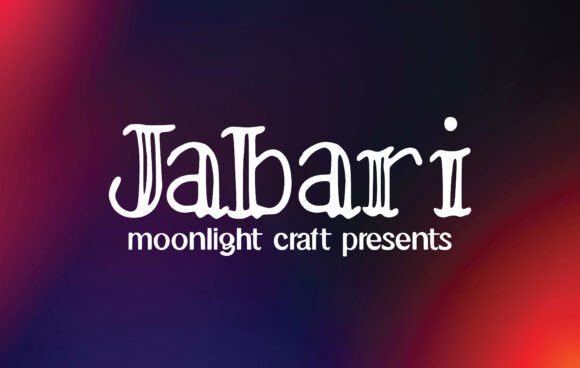
Jabari Font: Elevate Handmade Branding and Crafts
As a small business owner constantly searching for the perfect typeface to make my products stand out, discovering Jabari felt like finding a missing piece in my design toolkit. This lovely and beautiful font is more than just a collection of letters; it is a versatile Slab Serif that brings warmth, structure, and undeniable charm to physical goods and digital downloads alike. For crafters and sellers who understand that typography can make or break a sale, Jabari offers the potential to take creative ideas to the highest level, transforming simple labels and signs into premium brand experiences that customers want to buy.
Jabari Slab Serif for Eye-Catching Logos and Shop Branding
When establishing a cohesive identity across Etsy listings, packaging, and social media, Jabari serves as an exceptional anchor for logos and branding materials because of its distinct Slab Serif character. Unlike delicate scripts that can disappear on a screen or bold sans serifs that can feel too corporate, this font strikes a perfect balance between artisanal warmth and professional readability. I have found that using Jabari for shop names and banner headers creates an immediate sense of trust and quality, signaling to buyers that the products behind the brand are thoughtfully made. The sturdy serifs provide excellent legibility even at smaller sizes on business cards or hang tags, while the overall aesthetic remains soft enough for handmade niches like pottery, textiles, or organic skincare. By integrating Jabari into your core brand assets, you create a visual consistency that helps customers recognize your work instantly in a crowded marketplace.
Designing Readable Product Labels and Packaging with Jabari
Creating product labels requires a font that remains crisp when printed on textured paper or cut from vinyl, and Jabari excels in these practical applications where clarity is paramount. Whether you are designing candle labels, soap wrappers, or jar stickers, the robust structure of this Slab Serif ensures that essential information like scent names or ingredients stays readable without sacrificing style. In my own production workflow, I appreciate how well Jabari holds up during the weeding process on cutting machines; the letterforms are substantial enough to prevent tearing but refined enough to look elegant on curved surfaces. This makes it an ideal choice for makers who need their Fonts to perform double duty as both decorative elements and functional communication tools. When paired with a simple sans serif for fine print, Jabari allows the product name to pop, guiding the customer’s eye exactly where you want it while maintaining a clean, uncluttered layout that enhances perceived value.
Jabari Typography for Wedding Stationery and Elegant Invitations
For stationery designers and DIY brides, Jabari provides a sophisticated alternative to traditional calligraphy when creating wedding invitations, welcome signs, and place cards. While script fonts are classic for weddings, many modern couples prefer the grounded, timeless feel of a Slab Serif that feels personal yet structured, and Jabari delivers this aesthetic beautifully. Its lovely proportions make it perfect for displaying names and dates prominently on acrylic signage or heavy cardstock, ensuring that text is legible from a distance during events. I often recommend Jabari for couples who want their stationery to feel romantic but not overly frilly, as the font carries an emotional weight that complements floral arrangements and minimalist decor equally well. Because it works so well in uppercase settings, it is particularly effective for monograms and header text on invitation suites, providing a strong typographic foundation that supports softer accent fonts without competing for attention.
Crafting Shareable Quotes and Printable Wall Art Using Jabari
Digital download creators know that quote-based wall art sells best when the typography evokes emotion, and Jabari is specifically suited for creating eye-catching quotes that resonate with buyers. The inherent personality of this Slab Serif adds depth to inspirational messages, nursery prints, and kitchen sayings, making them feel like curated art rather than generic text. When designing printables, I find that Jabari’s balanced weight allows it to stand alone as a single-word statement or carry longer phrases without looking heavy or blocky. This versatility is crucial for sellers offering customizable templates, as the font adapts gracefully to different word counts and layouts while maintaining its distinctive charm. Furthermore, because Jabari renders clearly in digital mockups, customers can easily visualize how the final print will look in their homes, reducing hesitation and increasing conversion rates for digital products.
Font Pairing Strategies to Maximize Jabari in Creative Projects
To get the most commercial value from Jabari, it is essential to pair it strategically with complementary Fonts that enhance rather than overshadow its unique Slab Serif characteristics. My go-to approach is combining Jabari with a flowing handwritten script or a delicate serif for subheadings; this contrast highlights Jabari’s stability while adding a touch of whimsy that appeals to craft markets. Alternatively, pairing it with a clean, geometric sans serif creates a modern, editorial look that works wonderfully for boutique branding and contemporary home decor printables. When working on complex designs like planner pages or greeting cards, let Jabari handle the primary hierarchy—titles, names, and key phrases—while using lighter weights for body text to maintain visual breathing room. Testing these combinations in real-world mockups before listing products ensures that the final result looks intentional and polished, helping your items stand out against competitors who may rely on overused font pairings.